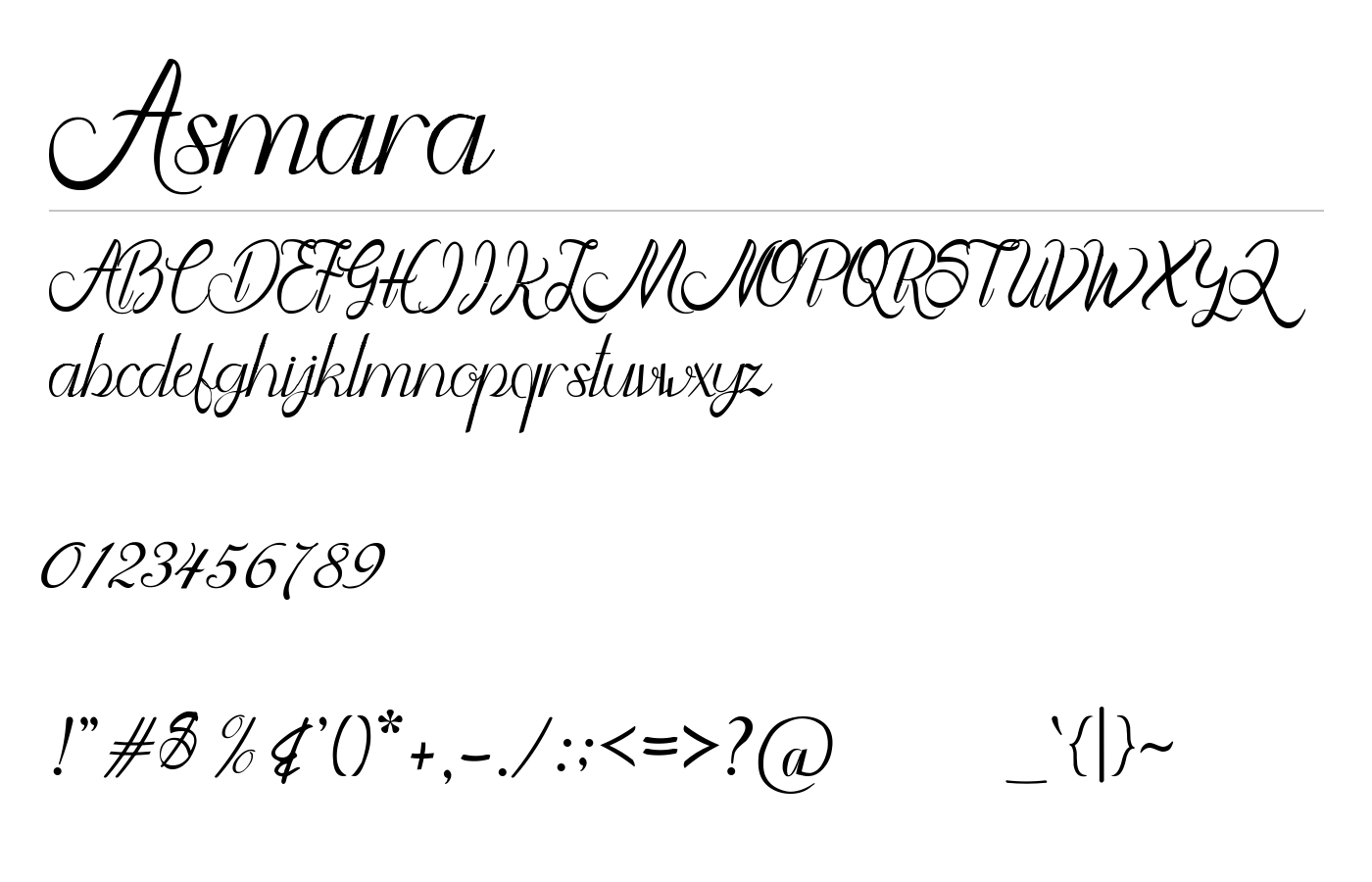
Asmara is an elegant script font with a graceful, flowing style that combines delicate strokes and refined curves. It features a slender, light weight with fluid, calligraphic letterforms that convey sophistication and a timeless charm, making it ideal for invitations, branding, and luxury design projects. Its stylish, cursive nature brings a personal and artistic touch that works beautifully in headline and decorative uses.
Asmara Font
About Asmara Font